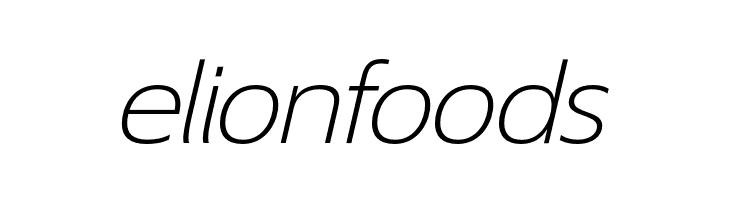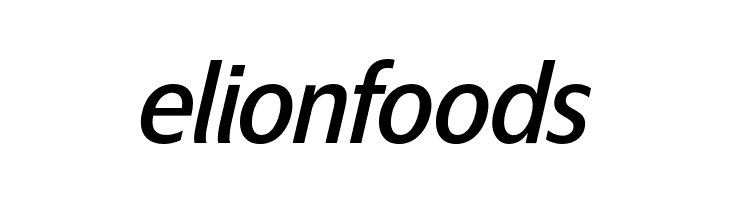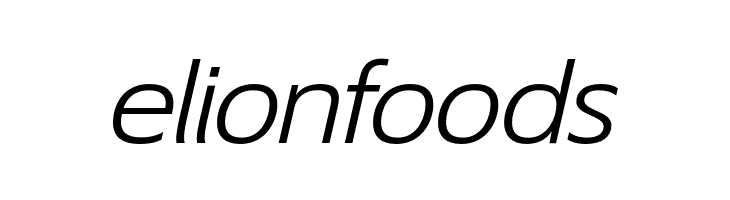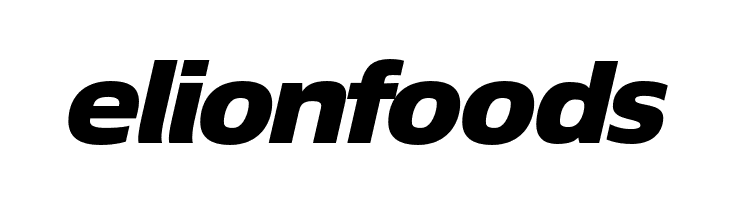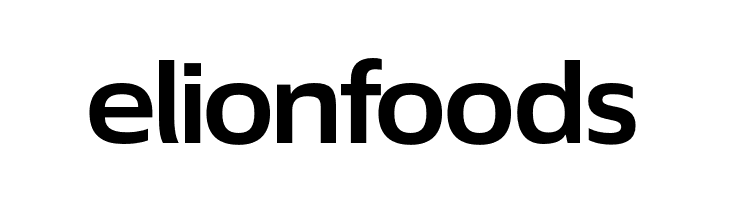
A modern, thin sans-serif font with clean lines and a minimalist design.
A modern, italic sans-serif font with medium weight and excellent readability.
A bold, modern sans-serif font with strong geometric shapes and uniform stroke width.
A thin, modern font with expanded width and geometric design.
A modern, italicized sans-serif font with expanded width and low contrast.
A modern, italic sans-serif font with a sleek and dynamic appearance.
A modern, italicized sans-serif font with expanded width and consistent stroke thickness.
A bold, italicized sans-serif font with high contrast and a modern style.
A bold, expanded sans-serif font with a modern and clean aesthetic.
A bold, expanded sans-serif font with a modern and impactful style.